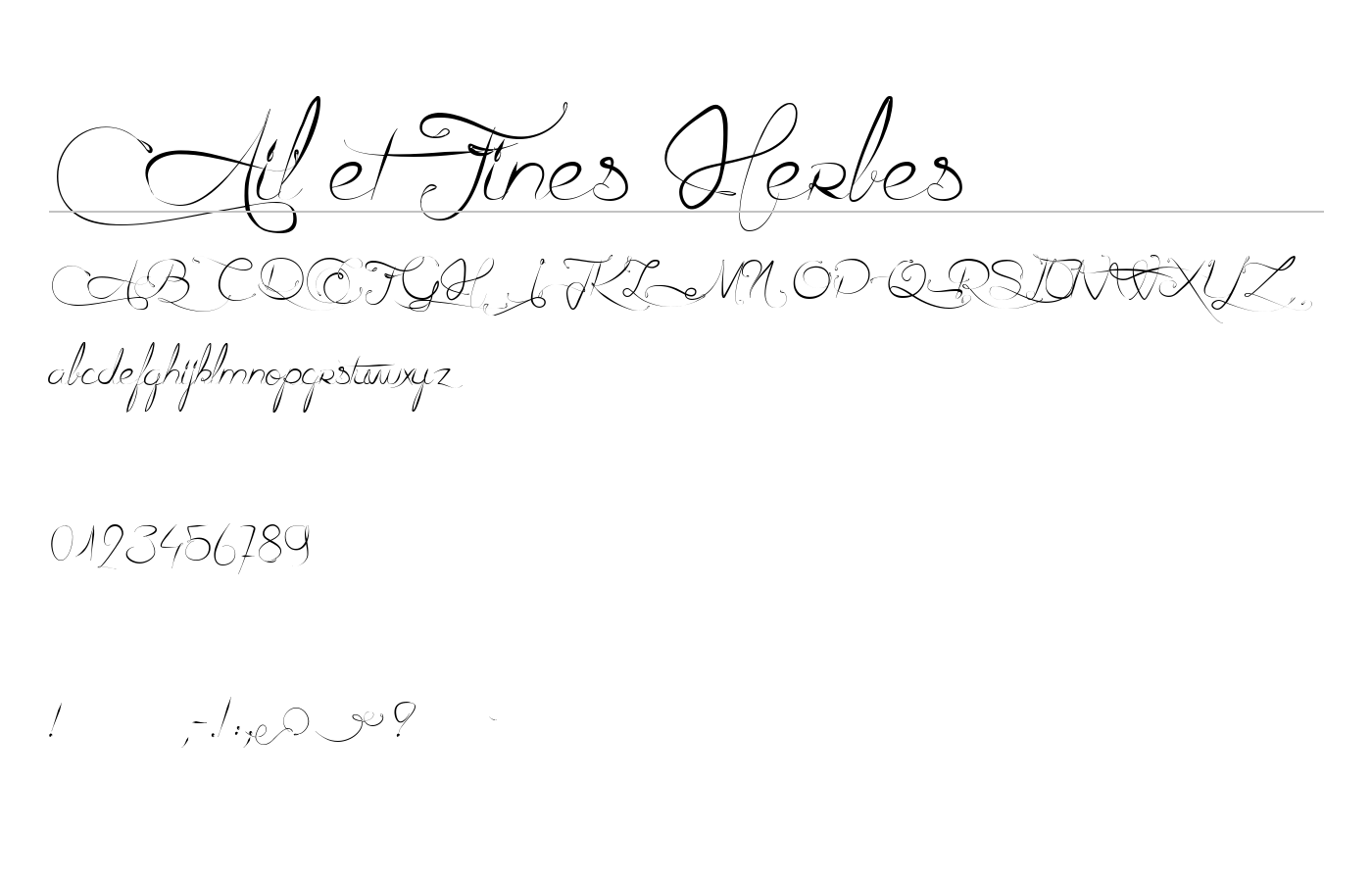
Ail et Fines Herbes is an elegant, delicate script font characterized by its thin, graceful strokes and intricate flourishes that give it a whimsical, artistic feel. Its light weight and airy design make it perfect for creating sophisticated, romantic branding or decorative headlines where a touch of elegance and refinement is desired. This font works beautifully in wedding invitations, luxury packaging, and fashion editorials, adding a unique, hand-crafted charm.
Ail et Fines Herbes Font